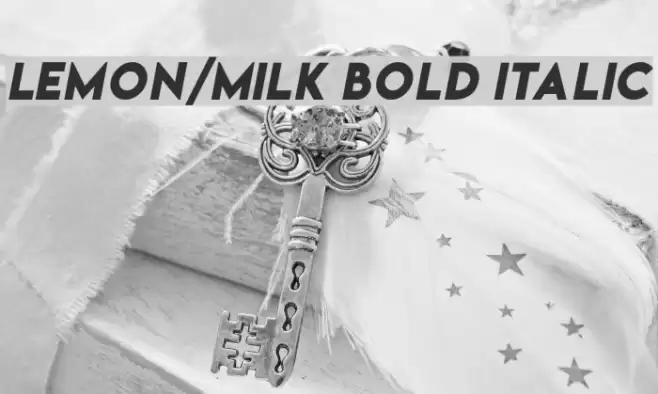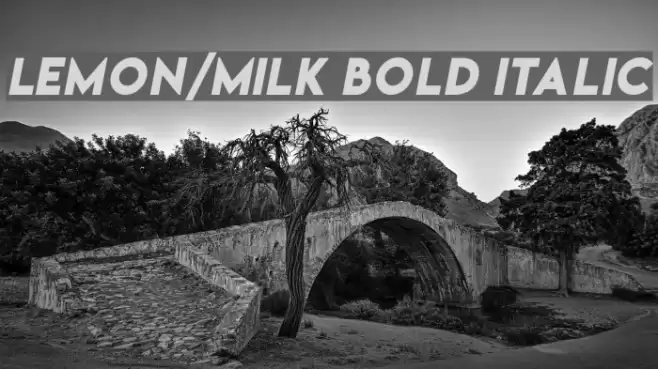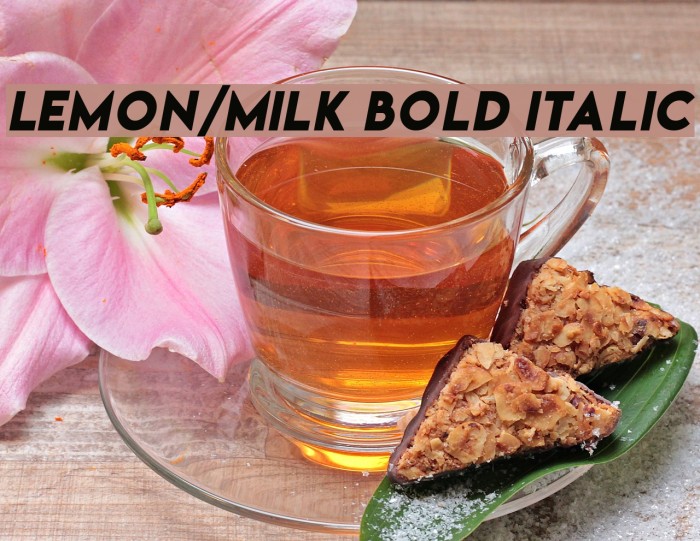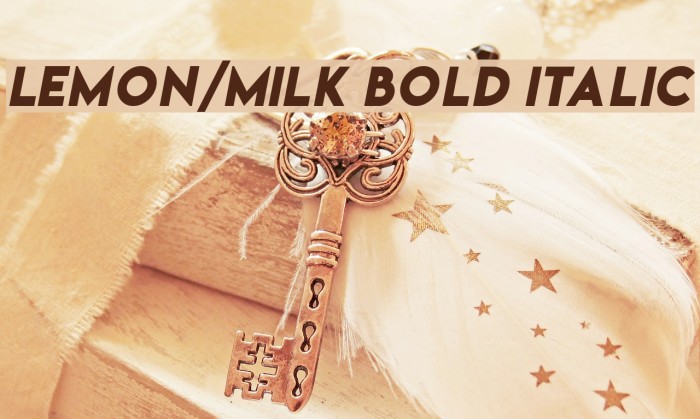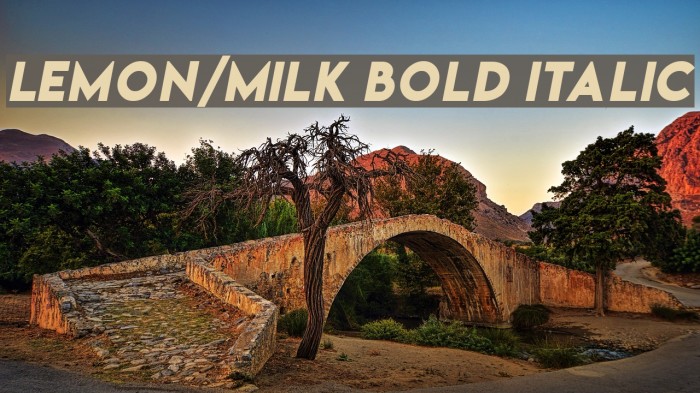
Lemon/Milk bold italic Font
Lemon/Milk bold italic Description
This font features a bold and italicized style that exudes a modern and dynamic feel. The characters are designed with a strong geometric structure, offering a sense of stability and confidence. The slanted orientation adds a sense of motion and energy, making it ideal for impactful headlines and attention-grabbing designs. The uppercase and lowercase letters maintain a consistent weight, ensuring readability and uniformity. Numbers and special characters are crafted with the same boldness, providing a cohesive look across all text elements. The font's bold nature makes it suitable for projects that require a strong visual presence.
A bold, italicized font with a modern and dynamic style from Uncategorized fonts.
- Proposed Projects: Ideal for branding, advertising, posters, and any design requiring a strong, modern impact.